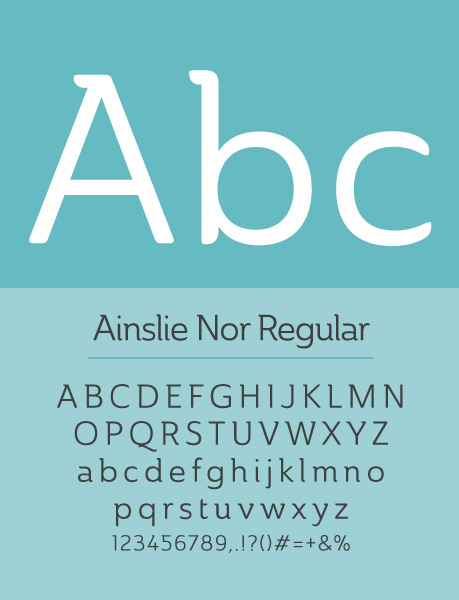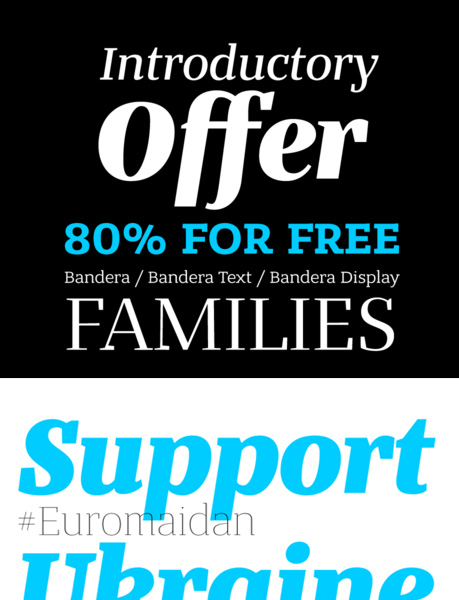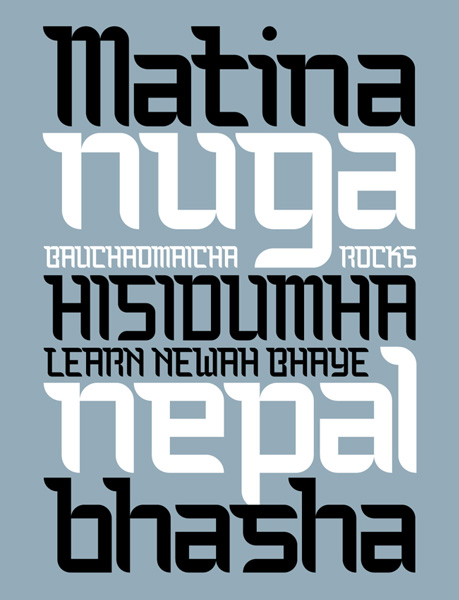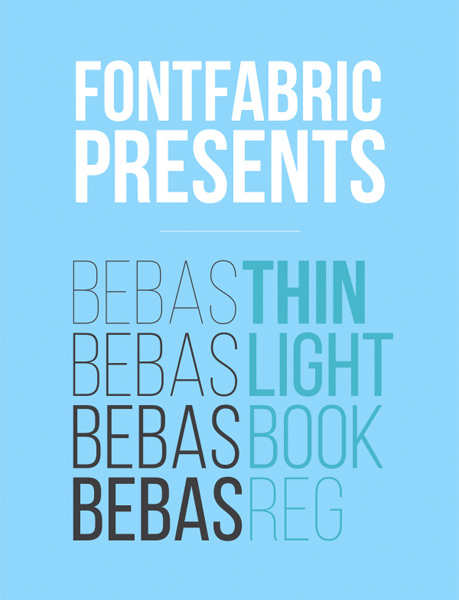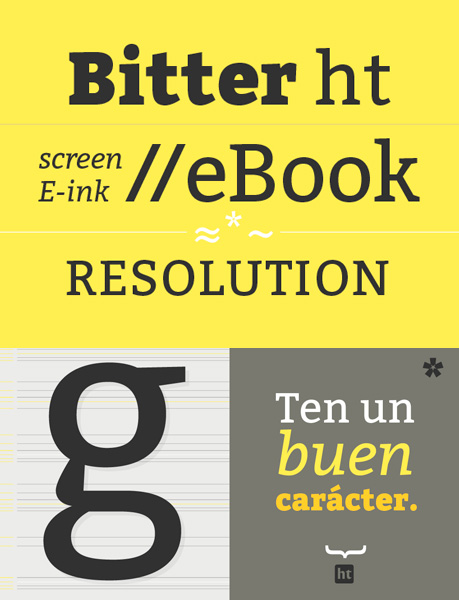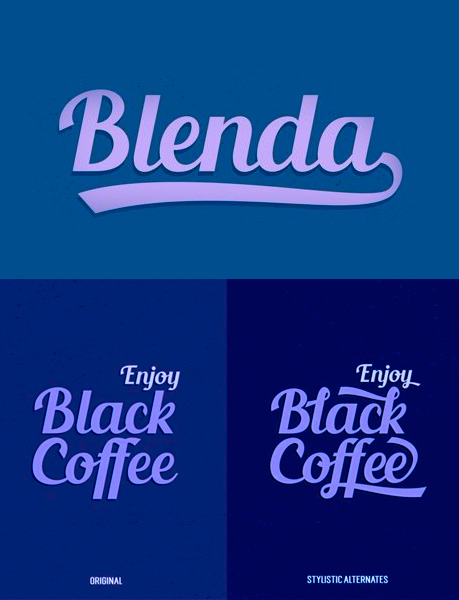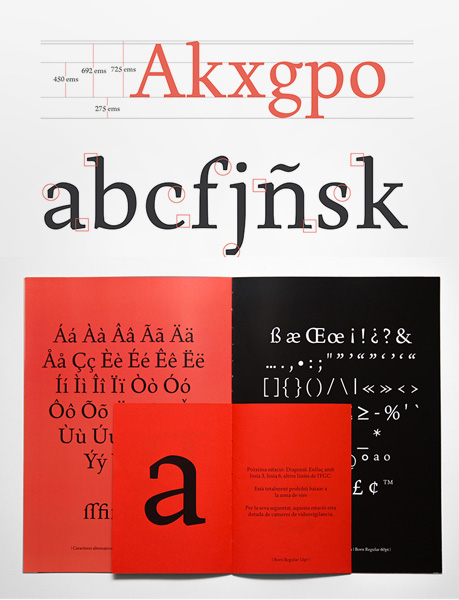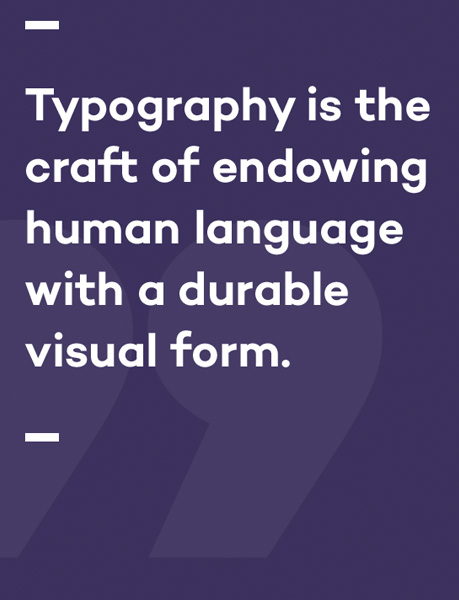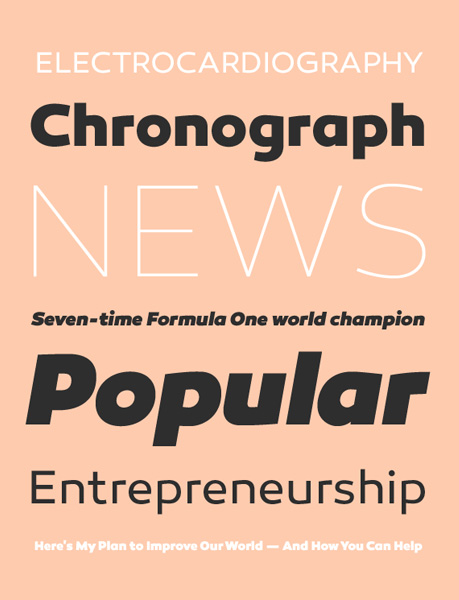
Here we are, once again, with our now-famous selection of the top 100 free fonts for 2014. This year we have only selected fonts published or updated in late 2013 and 2014, giving you one of the most up-to-date lists around. The majority are completely free with licenses for commercial use; the odd few available for personal use only have extended license options at a very reasonable price. The free font list comprises both entire font families and single weight downloads; either way, there is something for everyone and we think you'll love the ones we have picked out for you.
Font Selection
We have categorized the typefaces to help you browse more efficiently.
Sans-Serif Typefaces
Hallo
Hallo is a sans-serif regular font by Fredrik Staurland. Download Font -
Bebas Neue
Bebas Neue is a sans serif font family based on the original Bebas Neue free font by Ryoichi Tsunekawa. Download Font -
FairView
Fairview is a Condensed Industrial Sans Serif. Download Font -
Mohave
Mohave is all caps display typefaces. This sans-serif typeface is designed for large points setting, contains three weights. Download Font -
Homizio Nova
Homizio Nova is a sans-serif font designed by Álvaro Thomáz Download Font -
Rodus
Tracks Type
Tracks type is all caps fonts and alphabet only, inspired with railway tracks slash. It is designed for display type headlines, poster, title, etc.. Download Font -
Alieron
Aileron is a sans-serif font with 8 weights from black to Ultralight. Download Font -
Actual
Actual typefaces are designs by Petros Vasiadis. Download Font -
Simplifica
Simplifica is a slightly condensed sans-serif typeface featuring a uniform, thin line width. Download Font -
Corbert Condensed Italic
Corbert is a condensed sans serif. Download Font -
Bosun Free Font
Bosun is a modern interpretation of sans-serif typefaces. Download Font -
Exo 2.0
Exo 2 is an evolution of Exo, a contemporary geometric sans serif typeface. Download from Google Fonts -
Glober Free Font
Glober is characterized by excellent legibility in both web and print design areas. Well-finished, geometric designs, optimized kerning, excellent web-font performance and legibility. Download Thin and Bold for free. -
Gearus
Sans-Serif typeface by Petros Vasiadis. Download Font -
Langdon
Langdon Free Font. Download Font -
Norwester
A condensed geometric sans serif by Jamie Wilson. Download Font -
Odin Rounded
Odin Rounded is an free experimental font family with a clean and linear appearance. Download Font -
Proza
Contemporary, Paragraph, Sans, Humanist. Download Font -
Gafata std
Gafata is a font designed for small sizes in medium-long text. Mixing elegance and readability, this typeface is great for books, magazines and web pages. Download Font -
Economica
Economica is a font especially developed for printing in complex situations. It has been tested successfully for use in very small sizes without losing legibility. Download Font -
Campton Typefamily
Campton is a simple sans serif with a geometric skeleton. Download Font -
Gentona Typefamily
Sans serif typeface. Download Font -
Penna
Sans serif typeface. Download Font -
Canter Free Font
Canter is an all-caps, condensed typeface by Christopher J. Lee. Download Font -
Canaro
Canaro is an exploration of geometric-type designs of the early 20th century. Download Font -
Rleud
RLEUD - 4 weights demo for free. Download Font -
Overpass
Sans serif, neo-grotesque. Download Font -
Gandhi Sans
Sans serif typeface. Download Font -
Muzarela STD
Typeface by Vicente Lamonaca. Download Font -
Poetesen
Sans serif typeface. Download Font -
Farray
Sans serif font for personal and commercial use. Download Font -
Kanak
Sans serif font - Typokitchen is a ten-day typographic workshop organized for the first time in Macedonia, where the participants have the opportunity to learn how to create their own font. You can see and download for free 12 demo fonts. Download Font -
Tiny Tim Font
Sans serif font. Download Font -
Sant Joan Despí
Free Opentype. Download Font -
Niobium
Clean and simple Sans Serif font. Download Font -
FoobarPro
Foobar Pro Regular Demo. Download Font -
Gayatri Sans Serif
Gayatri Sans Serif font by Jagdeep Singh. Download Font -
Rambla Alt
Rambla Alt Std is a variation of Rambla. Download Font
Display and Decorative typefaces
Chawp
All caps font. Supports several languages. Download Font -
Cylburn
Cylburn is a semi-connected script which is structurally based on Roundhand, but written with a pointed brush and a restrained tension that separates it from its traditional roots. Download Font -
Impregnable
Script font. Download Font -
Chomp!
A new, fun and playful hand-drawn font. Download Font -
Blenda Script
Blenda Script is a free, experimental font inspired by Lobster font - a bold vintage script. It can be used for news, posters, logos, badges, etc. Download Font